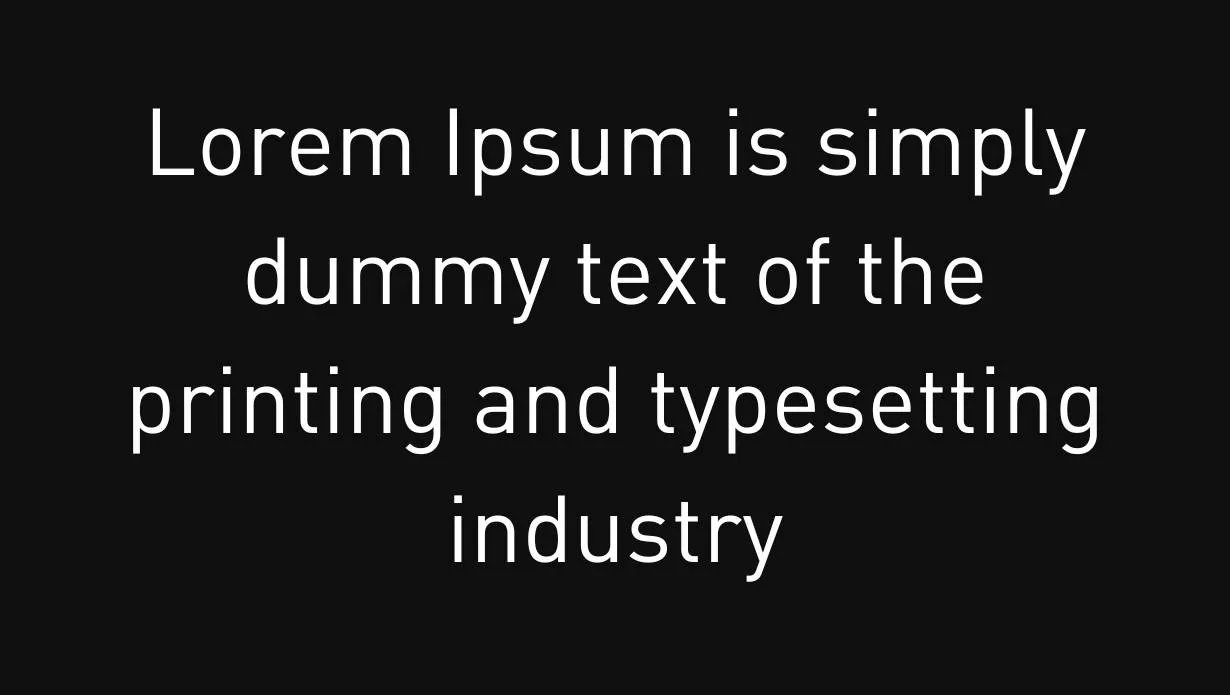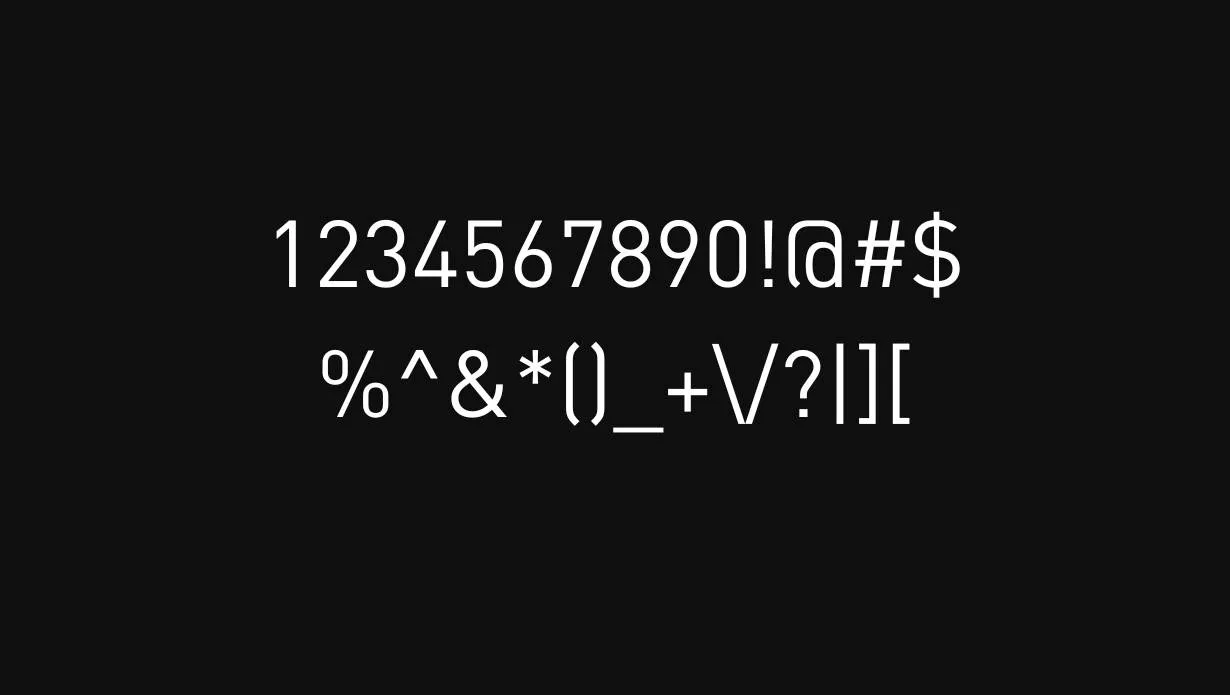
DIN Font belongs to the Sans-Serif font category that was designed by a Hamburg-based designer from the Netherlands Albert-Jan-Pool and shared by the German organisation Deutsches Institut Fur Normung (DIN) in 1936.
This typeface is based on geometric shapes with an extensive X-height and high legibility. This typeface also includes monoline and simple characters.
It also contains Basic Latin, Latin-1 Supplement, glyphs, and alternates. If you want a more soft and legible design for your project then combine this typeface with comfortaa font.